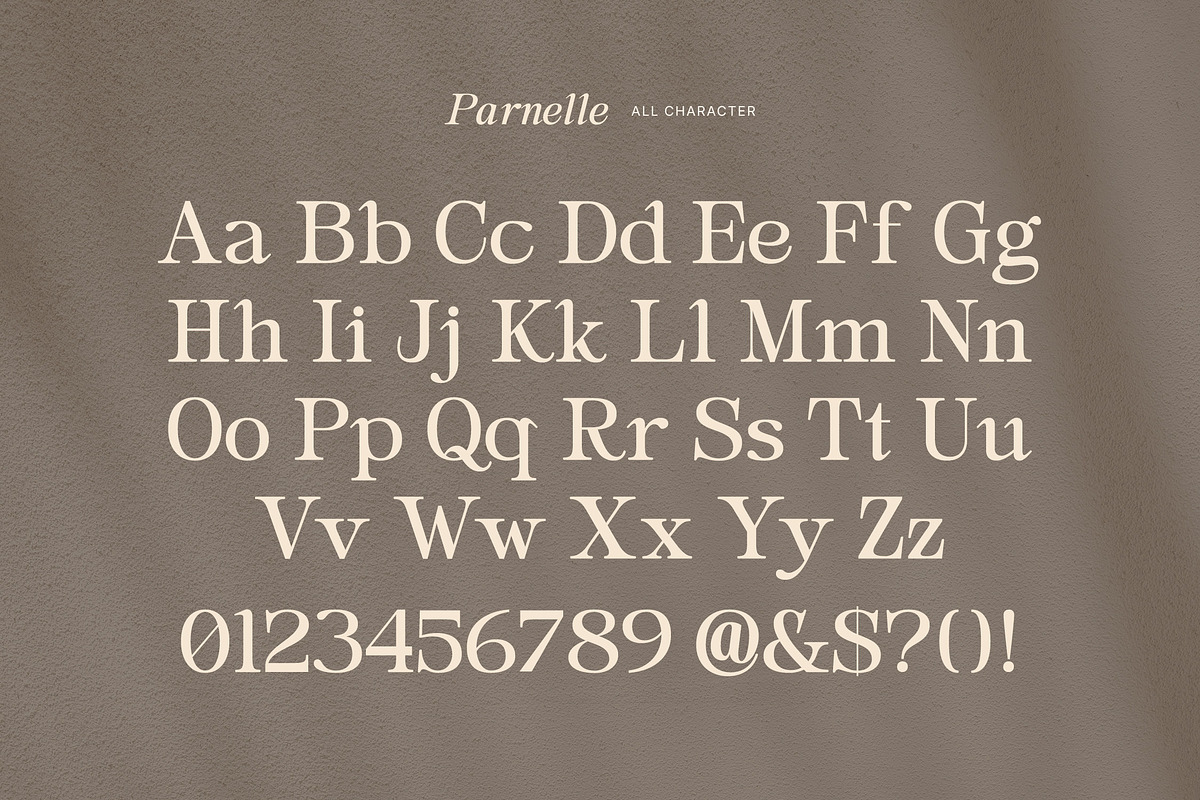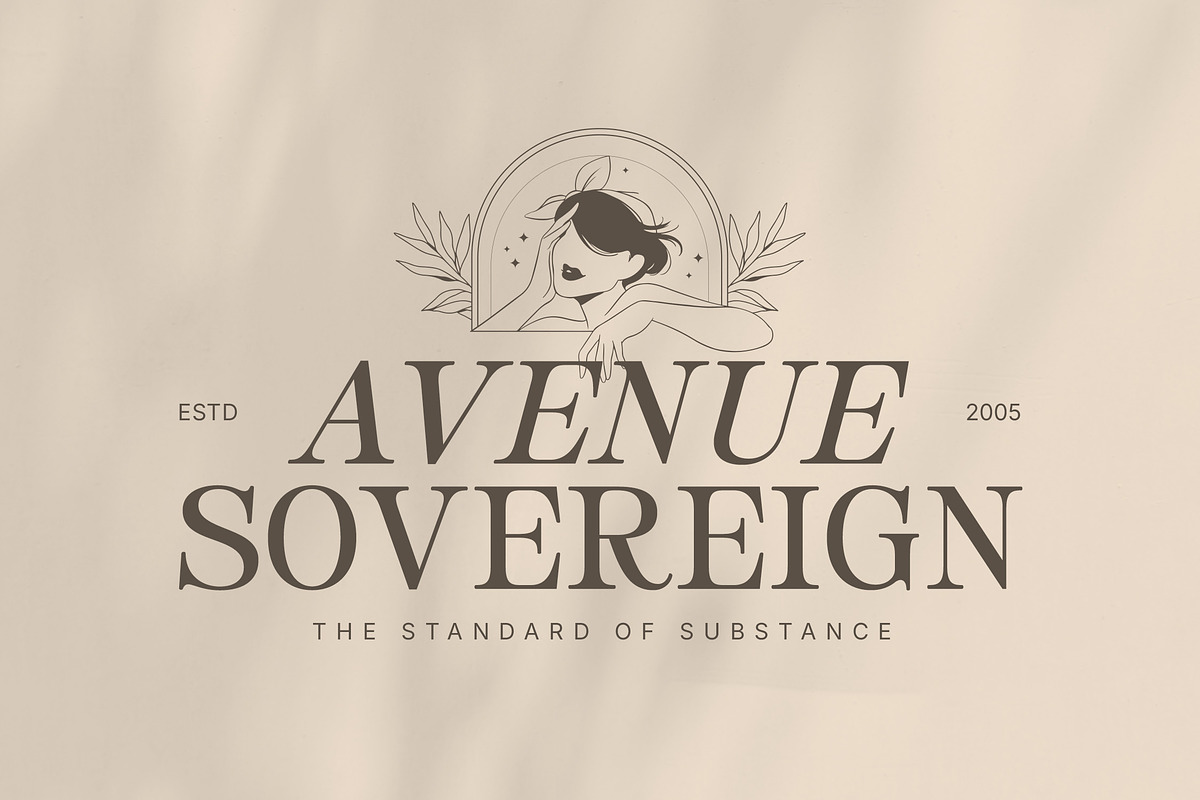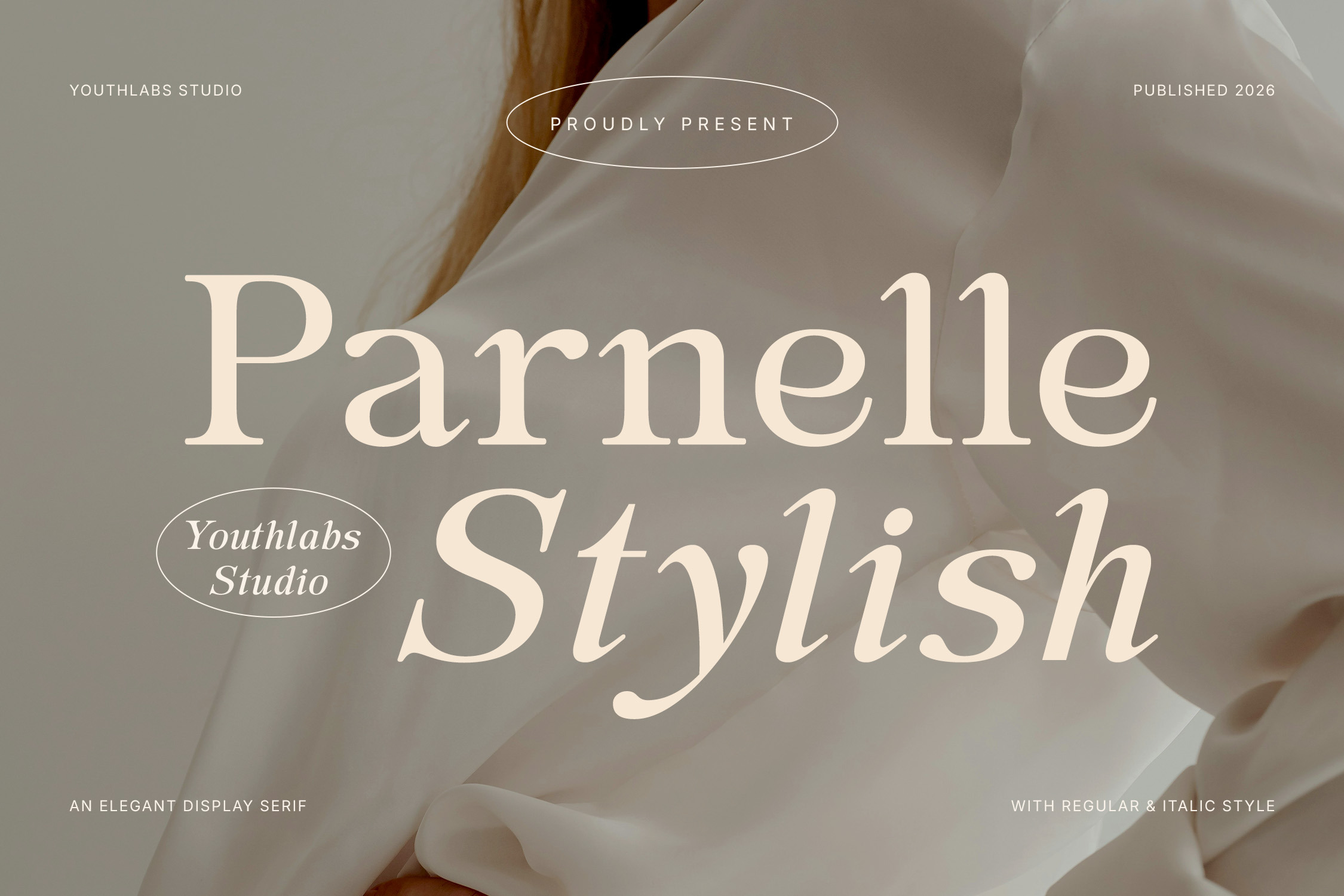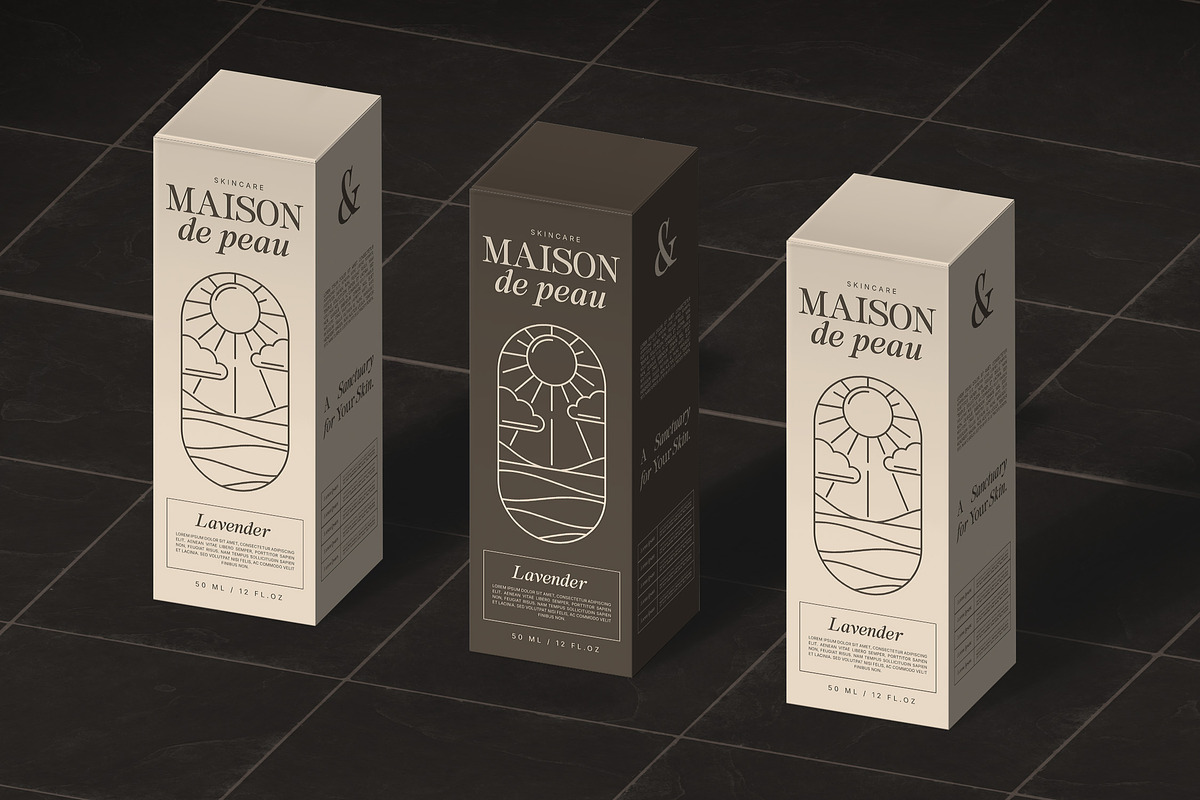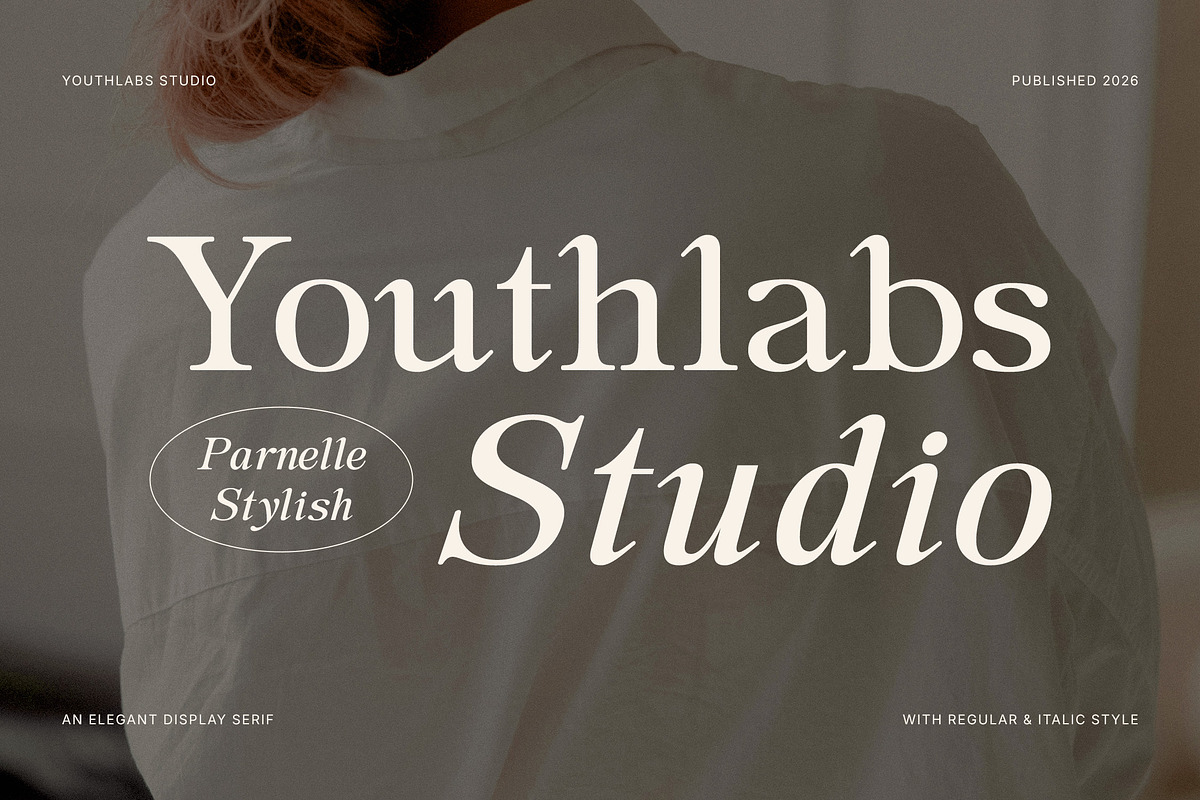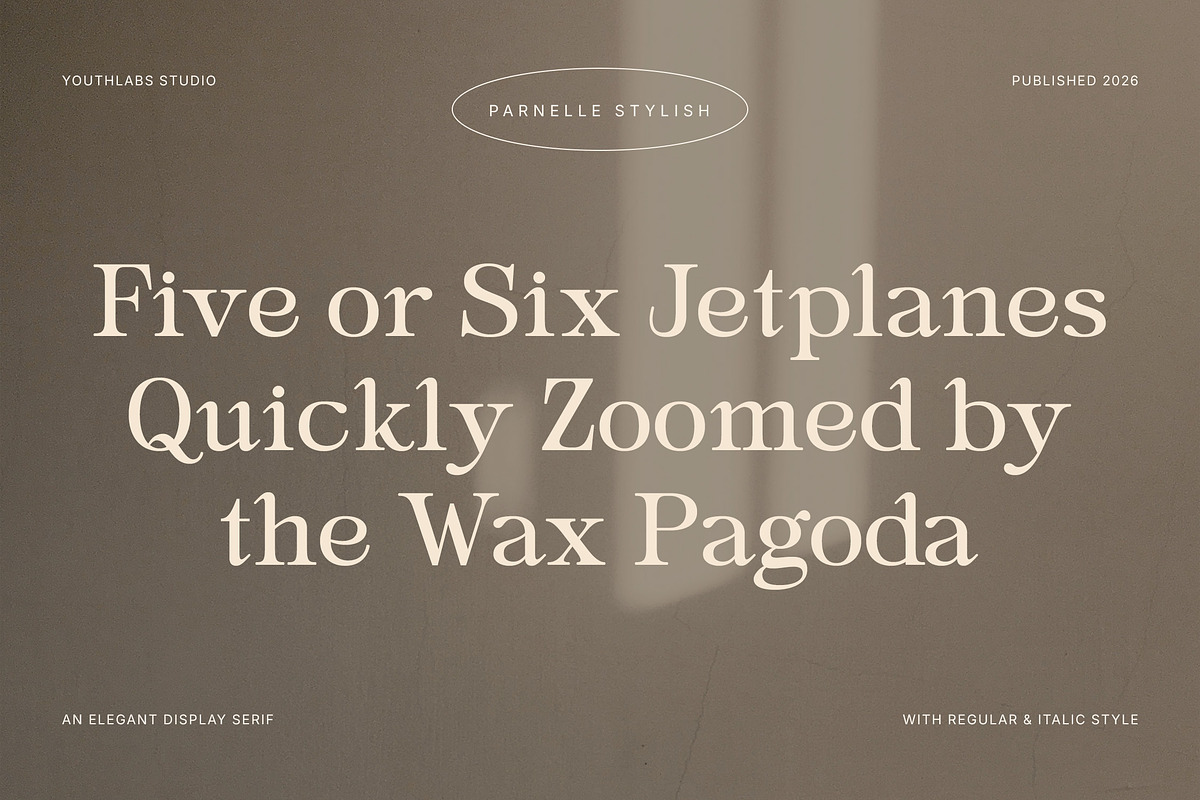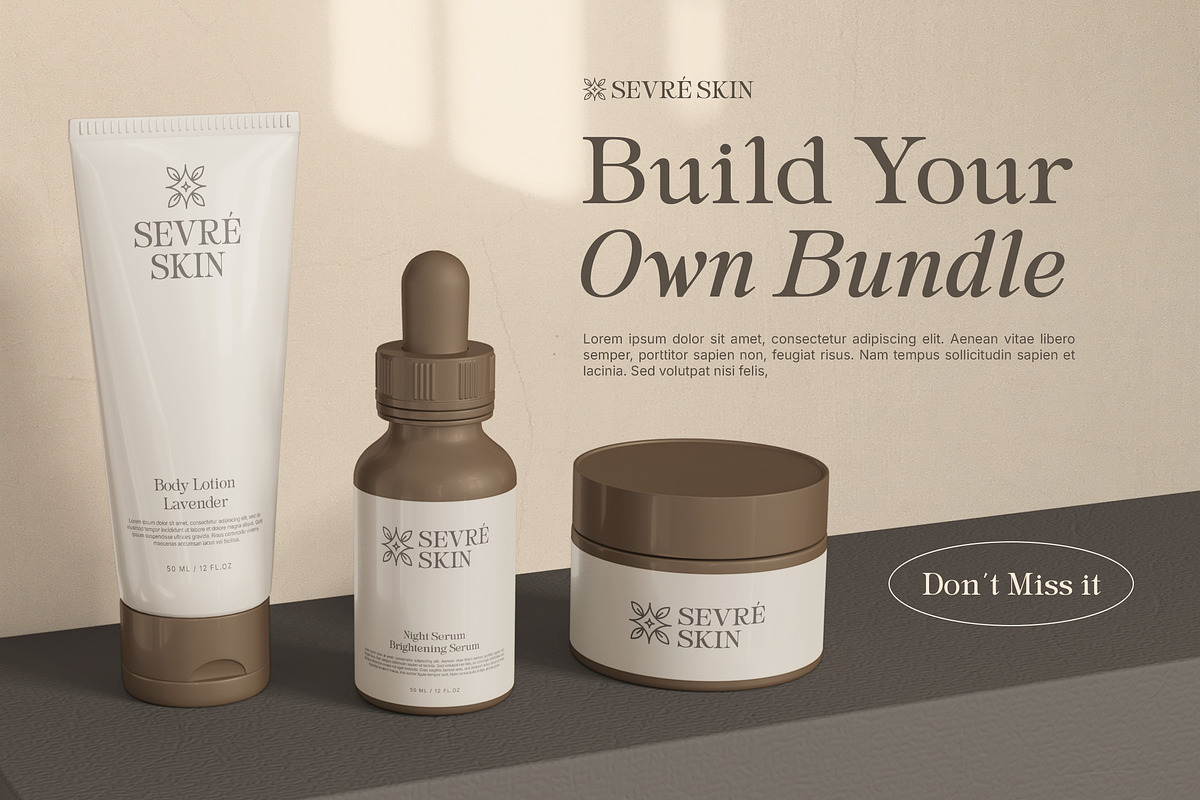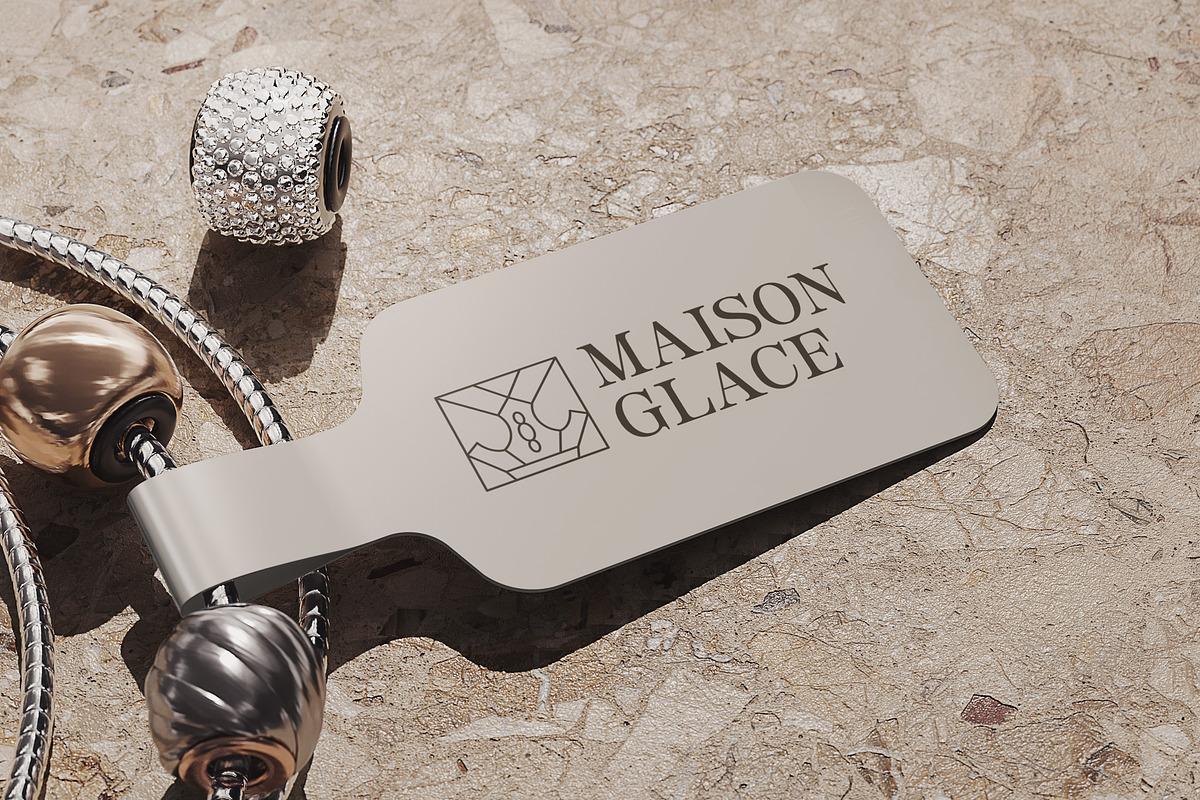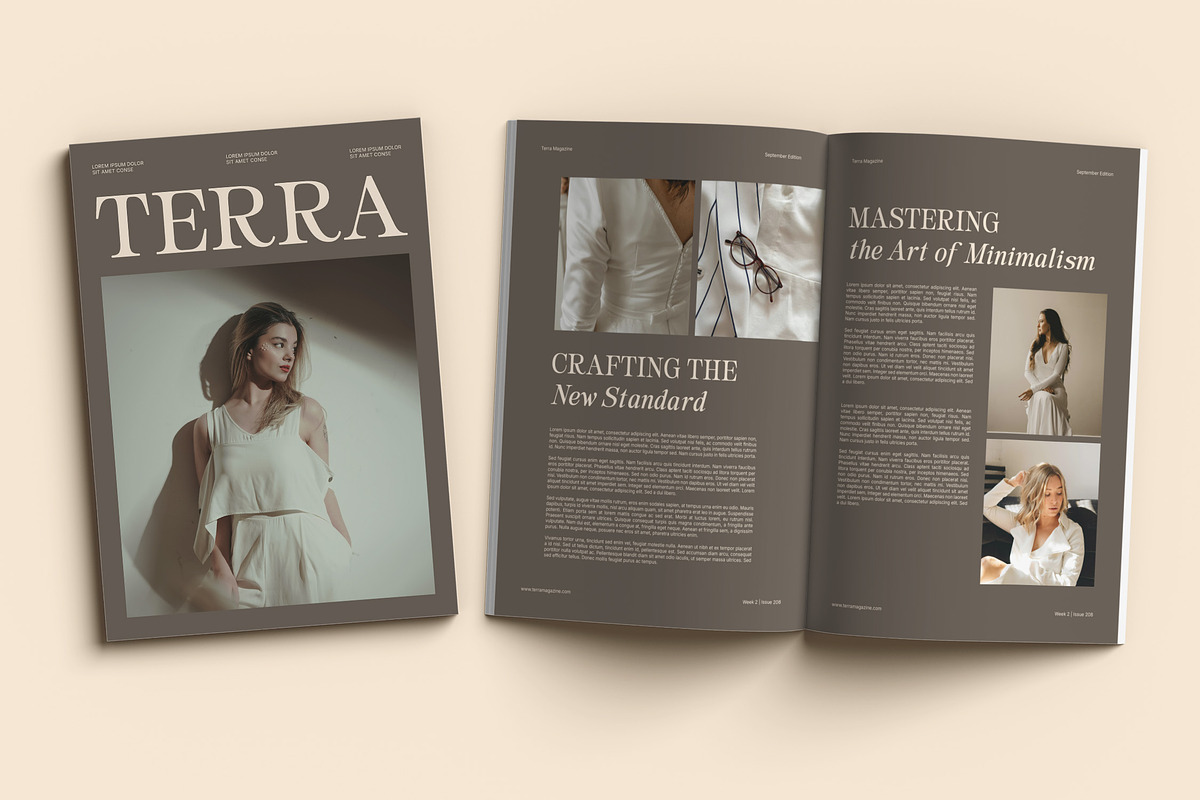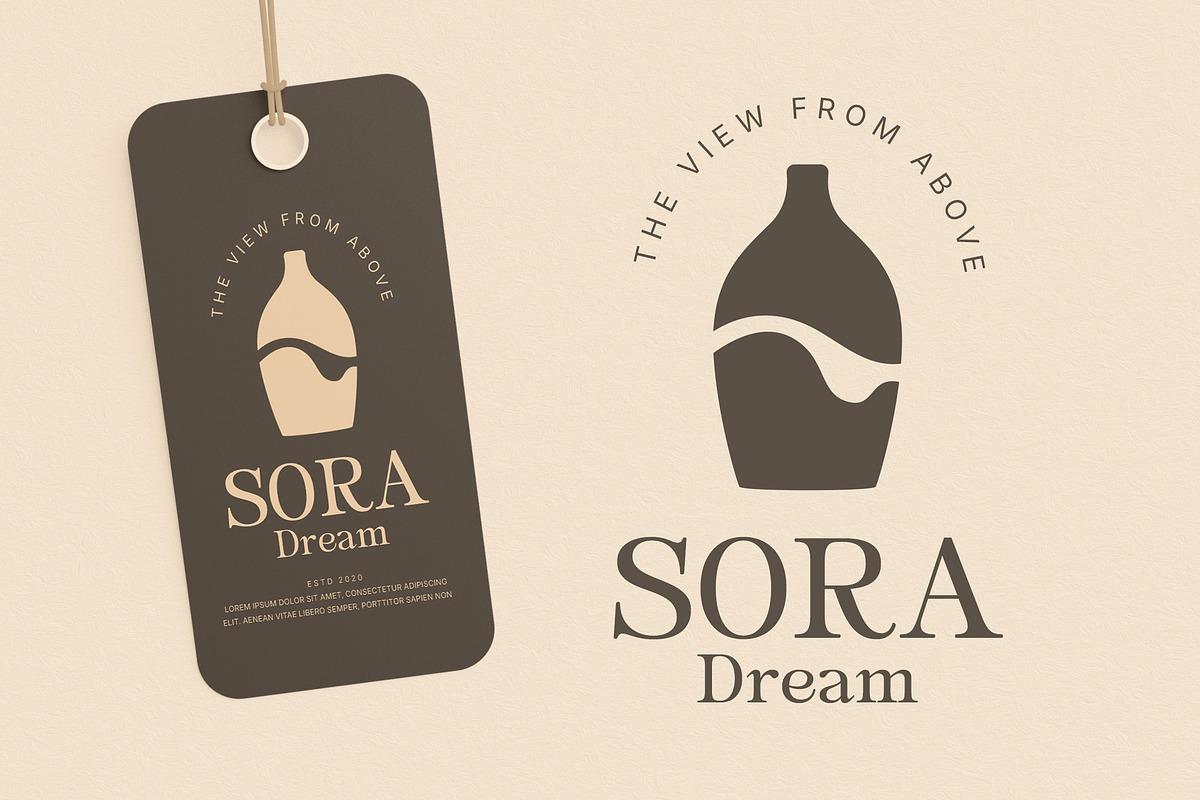
Parnelle - Elegant Serif Font
Parnelle is a masterclass in modern elegance. This display serif, meticulously crafted by Youthlabs Studio, seamlessly blends classic letterforms with contemporary flair to create a typeface that feels both storied and fresh. Designed for impact, its high-contrast strokes and refined curves command attention without ever shouting. Whether you are developing a luxury visual identity, designing a sophisticated magazine layout, or crafting premium packaging for a boutique brand, Parnelle provides the polished finish your project deserves. With both regular and italic styles included, it offers the versatility needed to create dynamic, high-fashion compositions that exude grace and authority.
Elegant Display Serif Aesthetic
Includes Regular & Italic Styles
Sophisticated High-Contrast Strokes
Refined Editorial Character Design
Perfect for Luxury Branding
Timeless High-Fashion Appeal